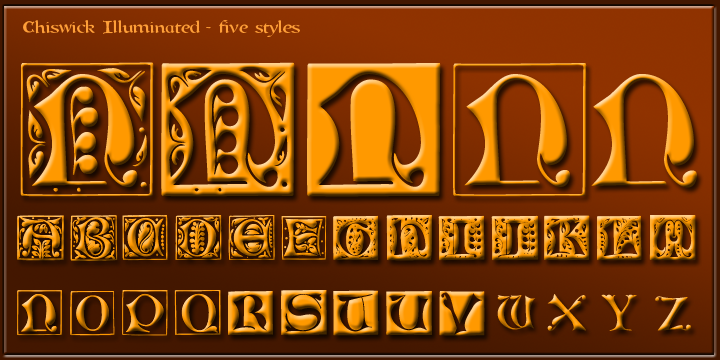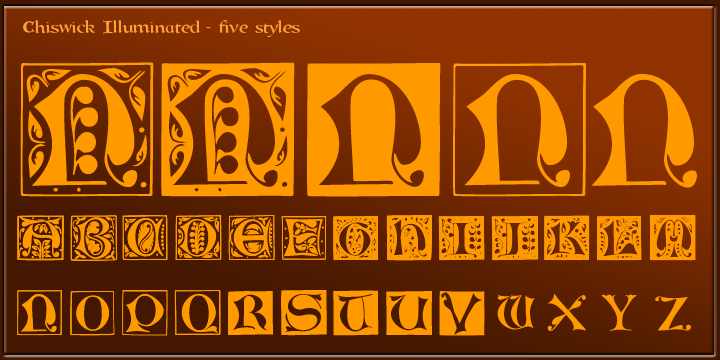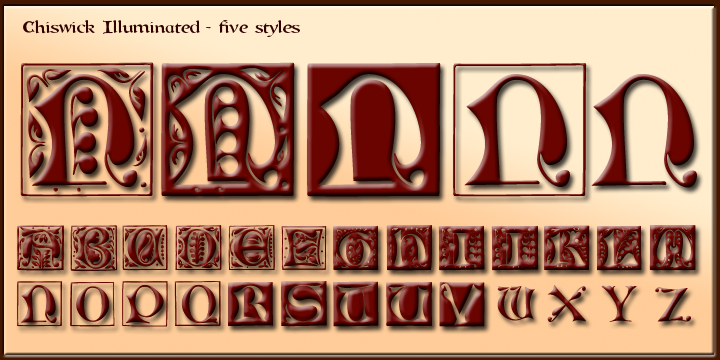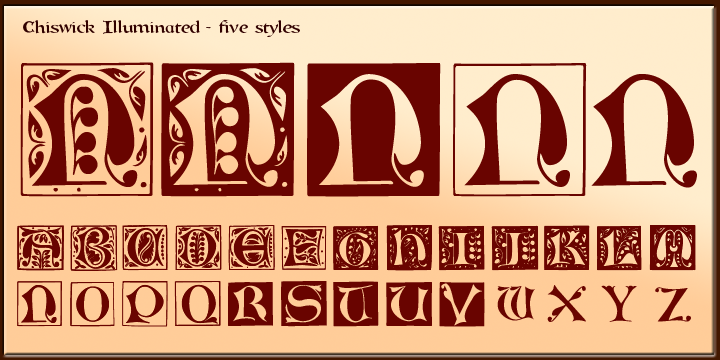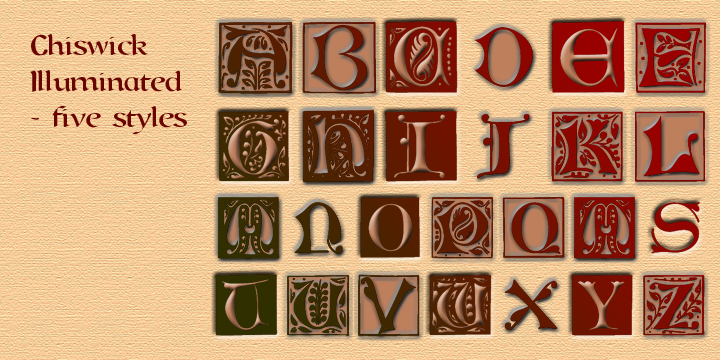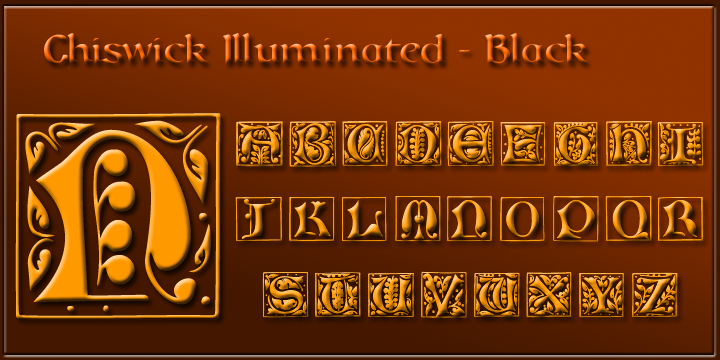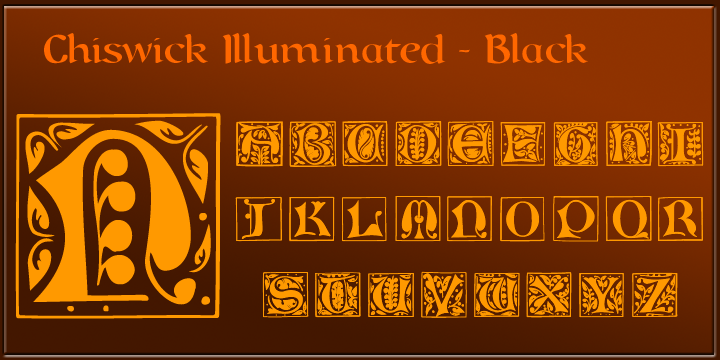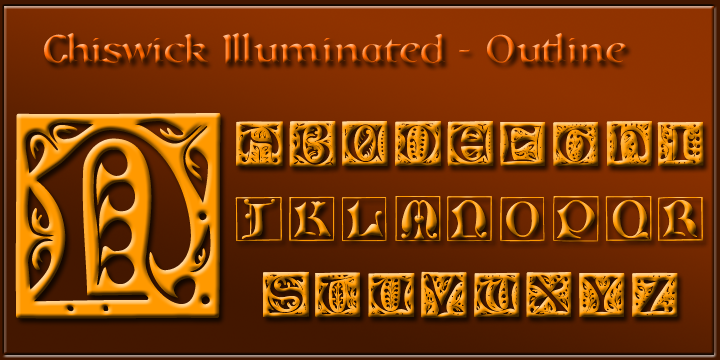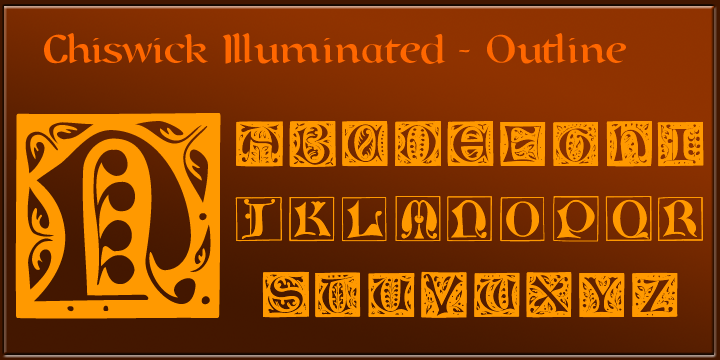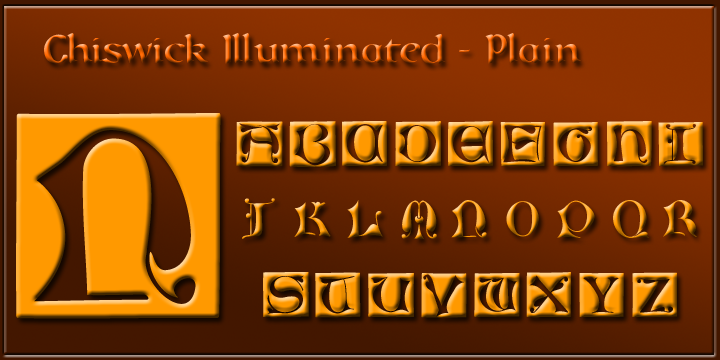
Chiswick Illuminated Capitals
A delightful latter-day reworking of the Lombardic ideal, provided here with the main letter and the background illumination separated so that they can be given different colours on different layers, and given different effects in, for example, Photoshop; the letters are given in both normal and reverse forms ('black-on-white' and 'white-on-black'), and the various combinations give five different styles. Font and 'posters' by David.